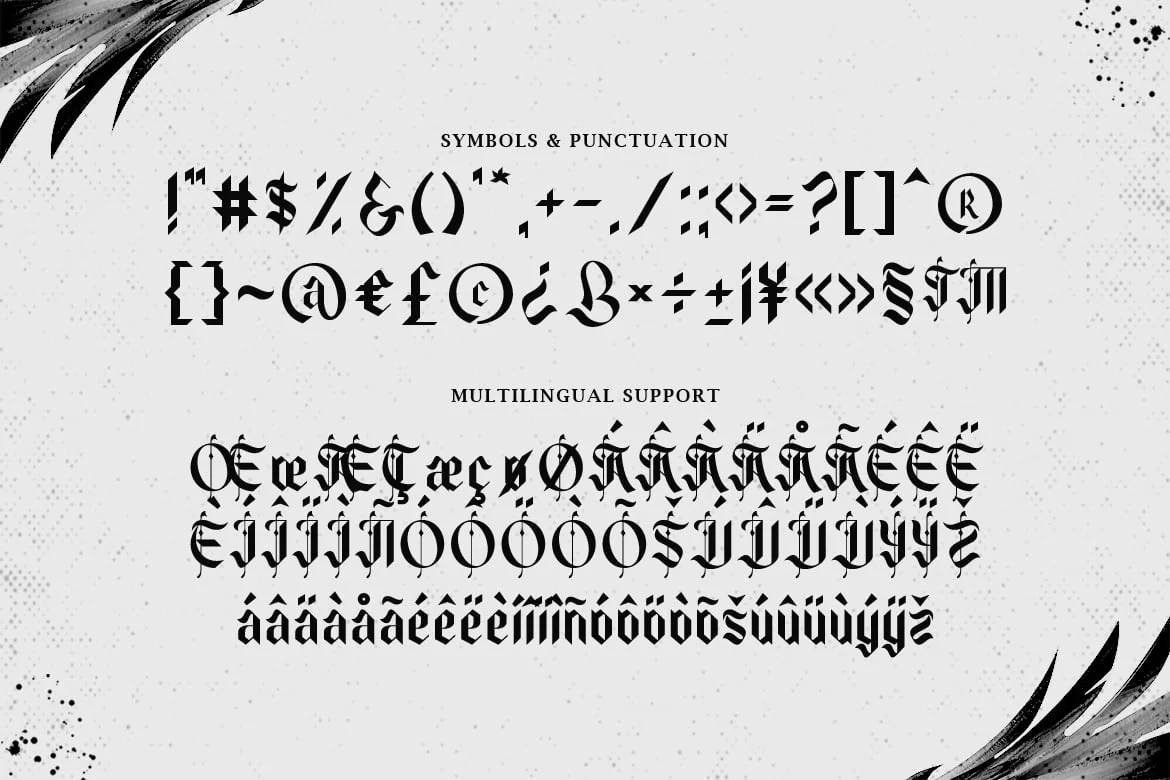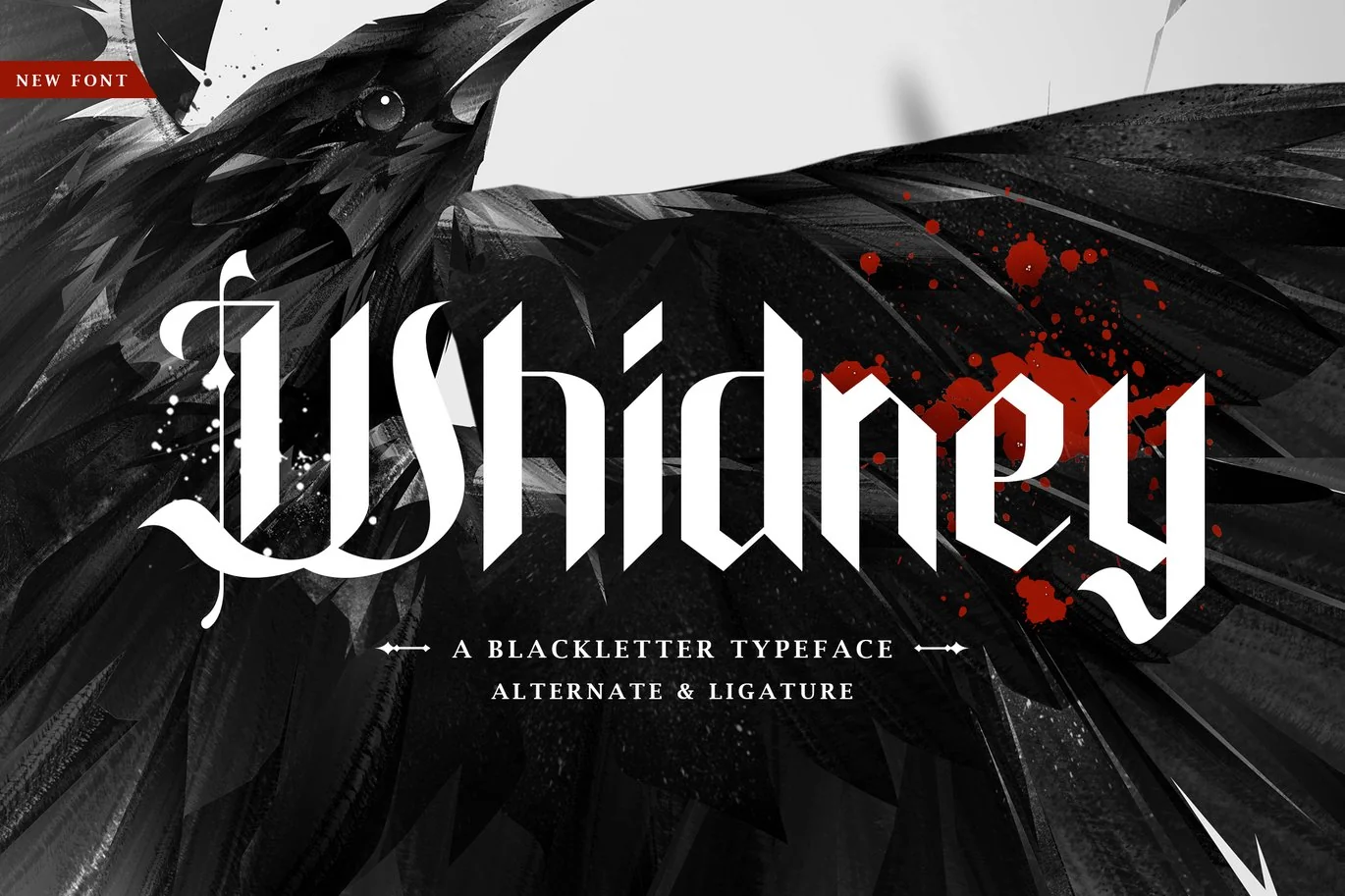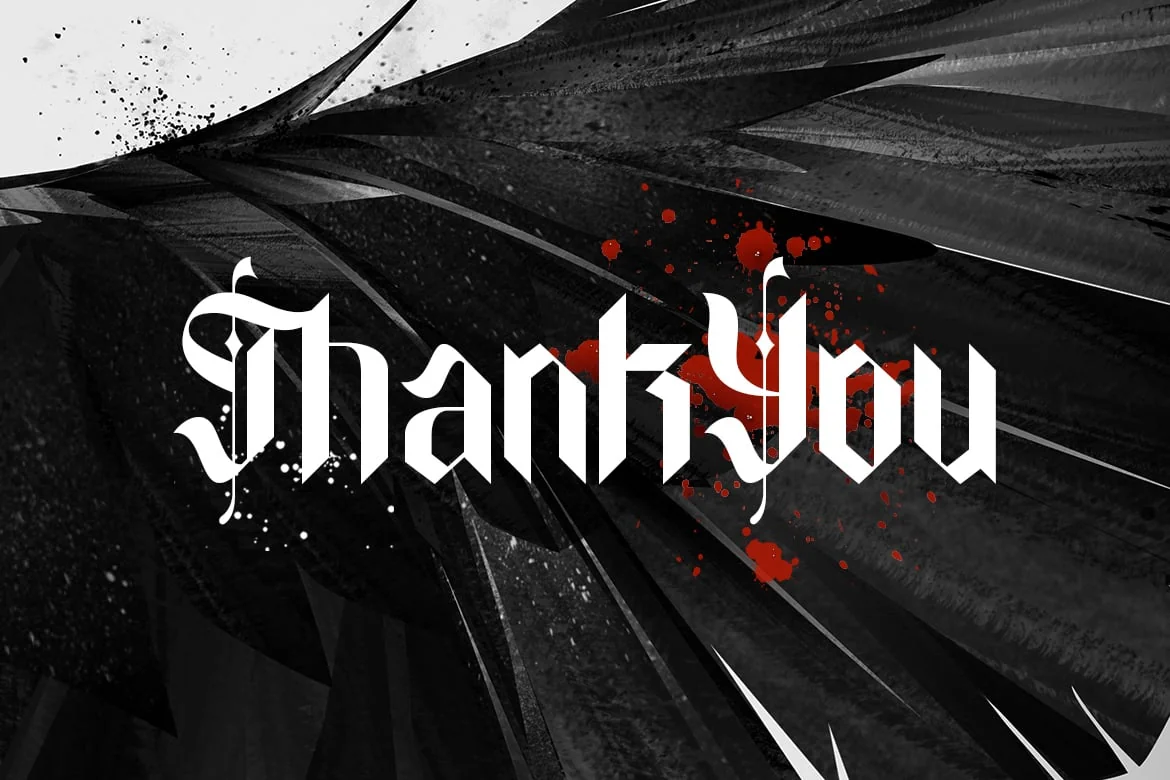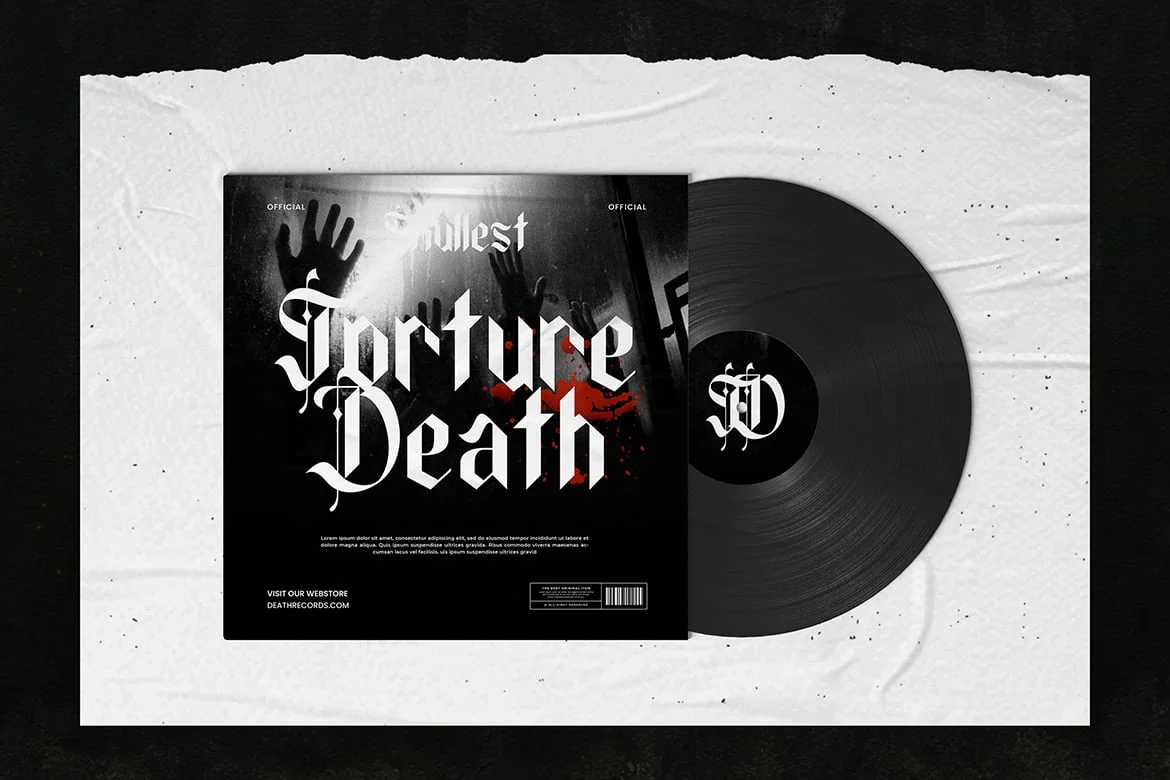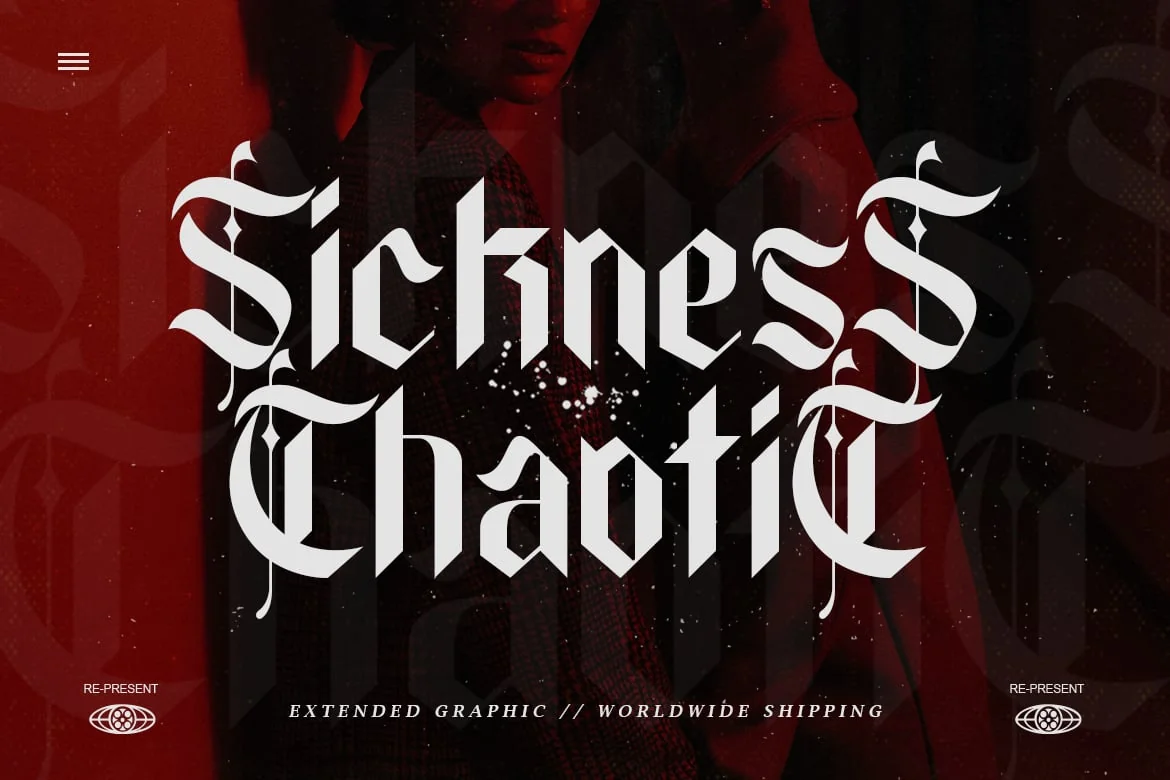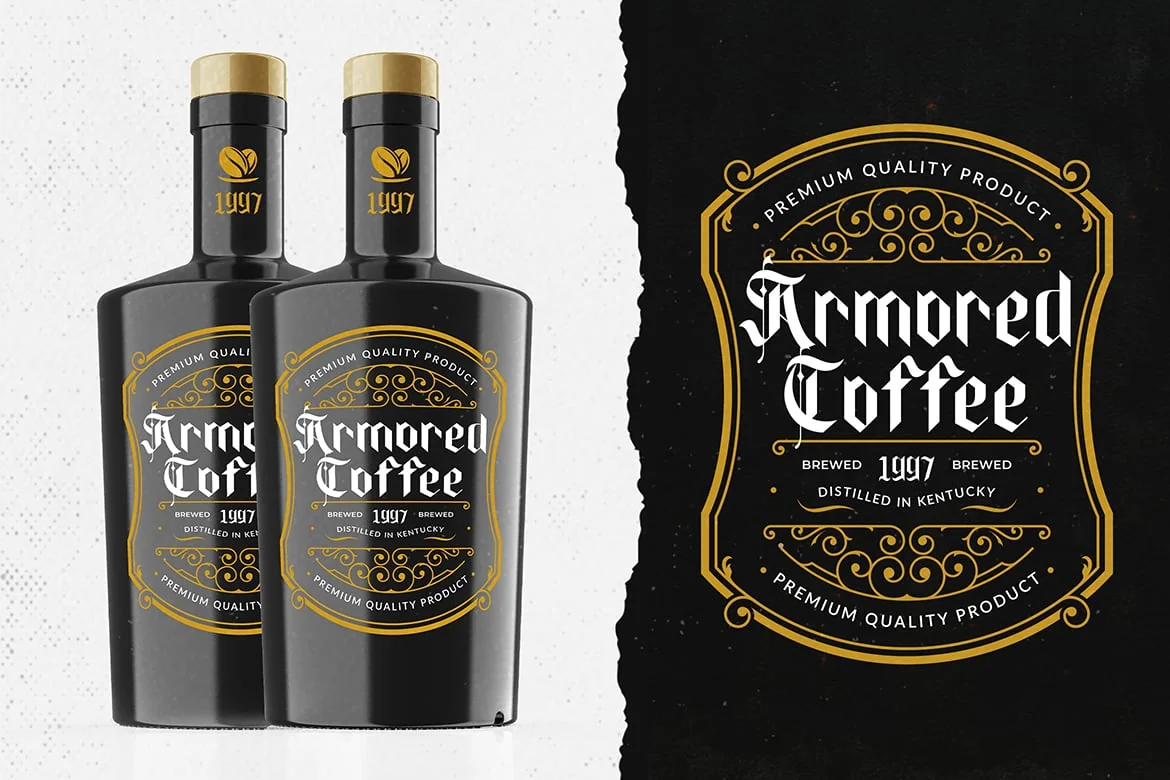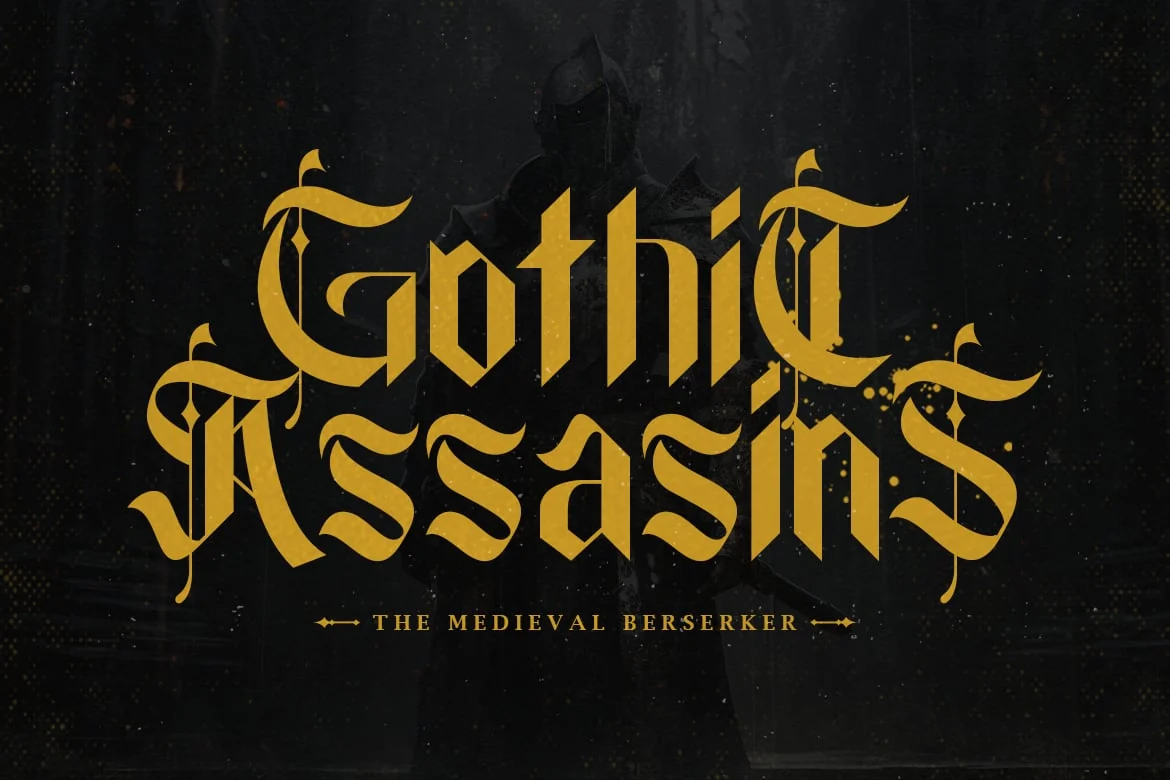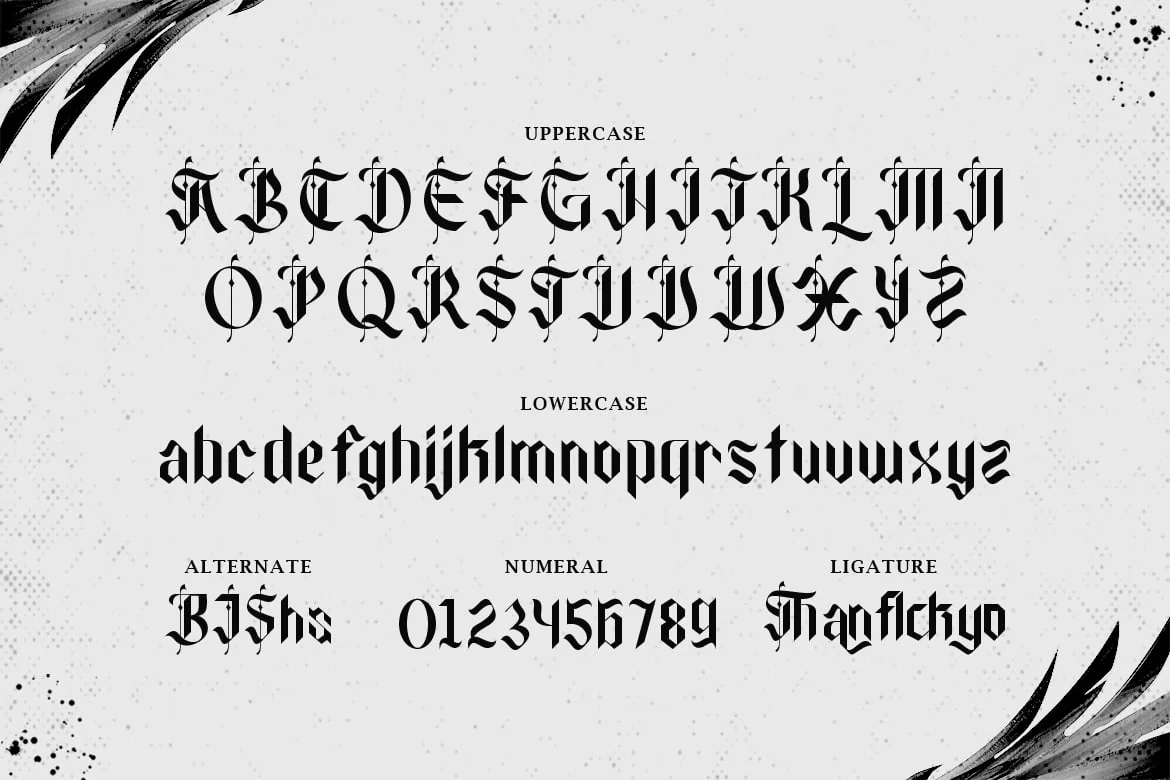
Whidney – A Blackletter Typeface
Introducing “Whidney” – a bold blackletter typeface that channels medieval elegance and Gothic aesthetics, perfect for adding a touch of drama and sophistication to your designs.
With its intricate details and sharp serifs, “Whidney” offers versatility and historical charm, making it ideal for branding, packaging, posters, and more.
Embrace the timeless allure of “Whidney” as it effortlessly enhances your designs with its dramatic typography and Gothic flair.
Step into the world of medieval elegance with “Whidney” and let your creativity transport your audience to another era.